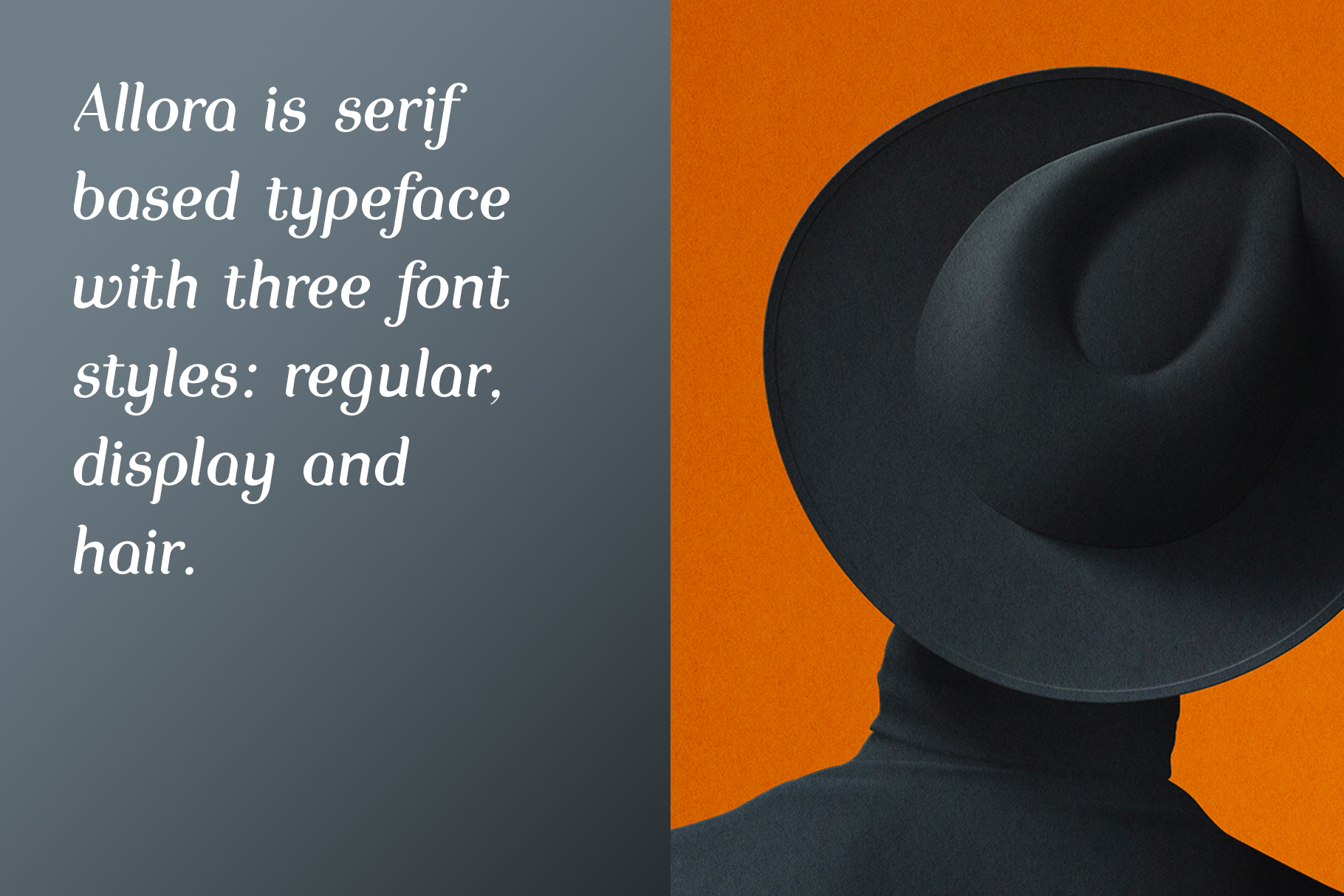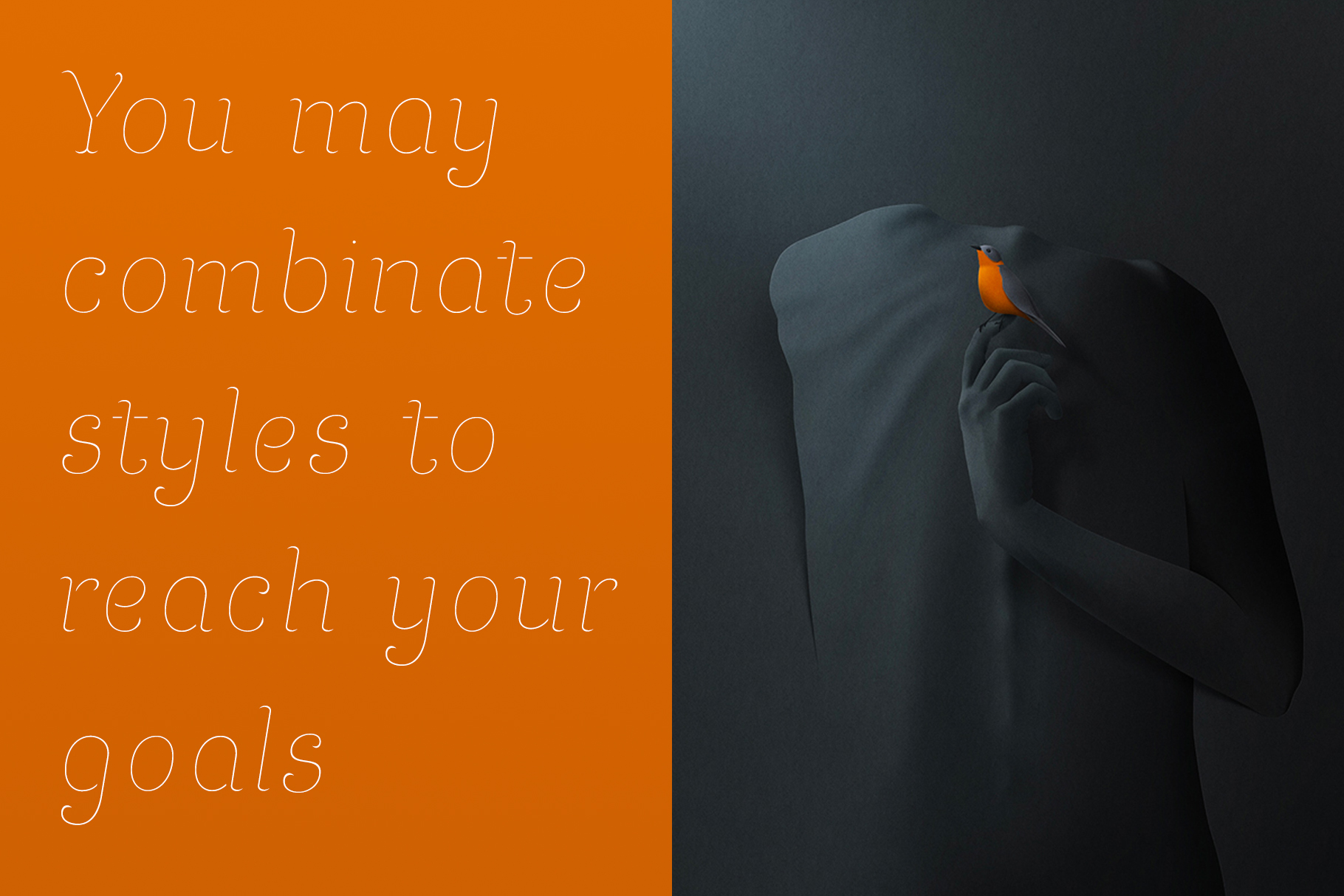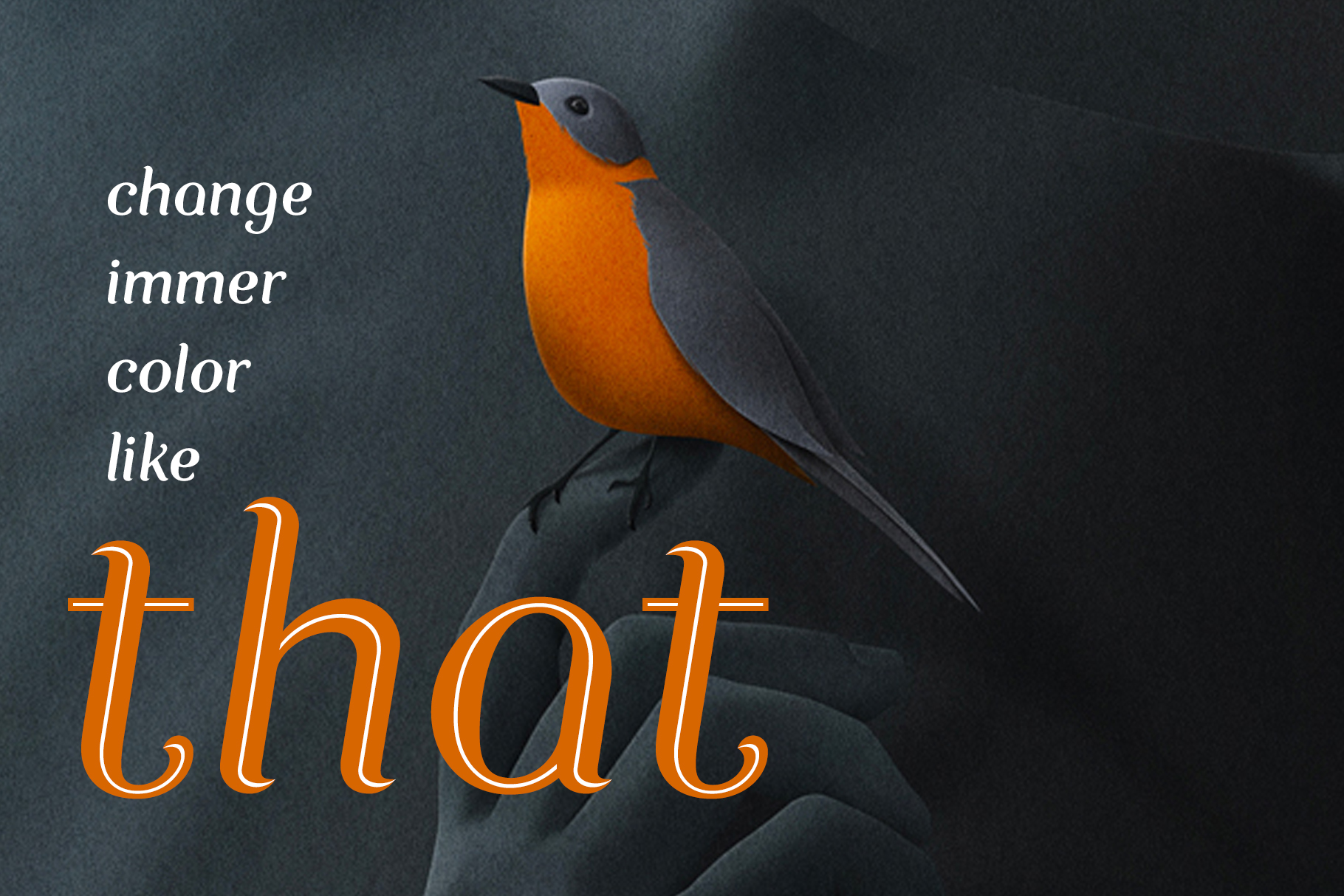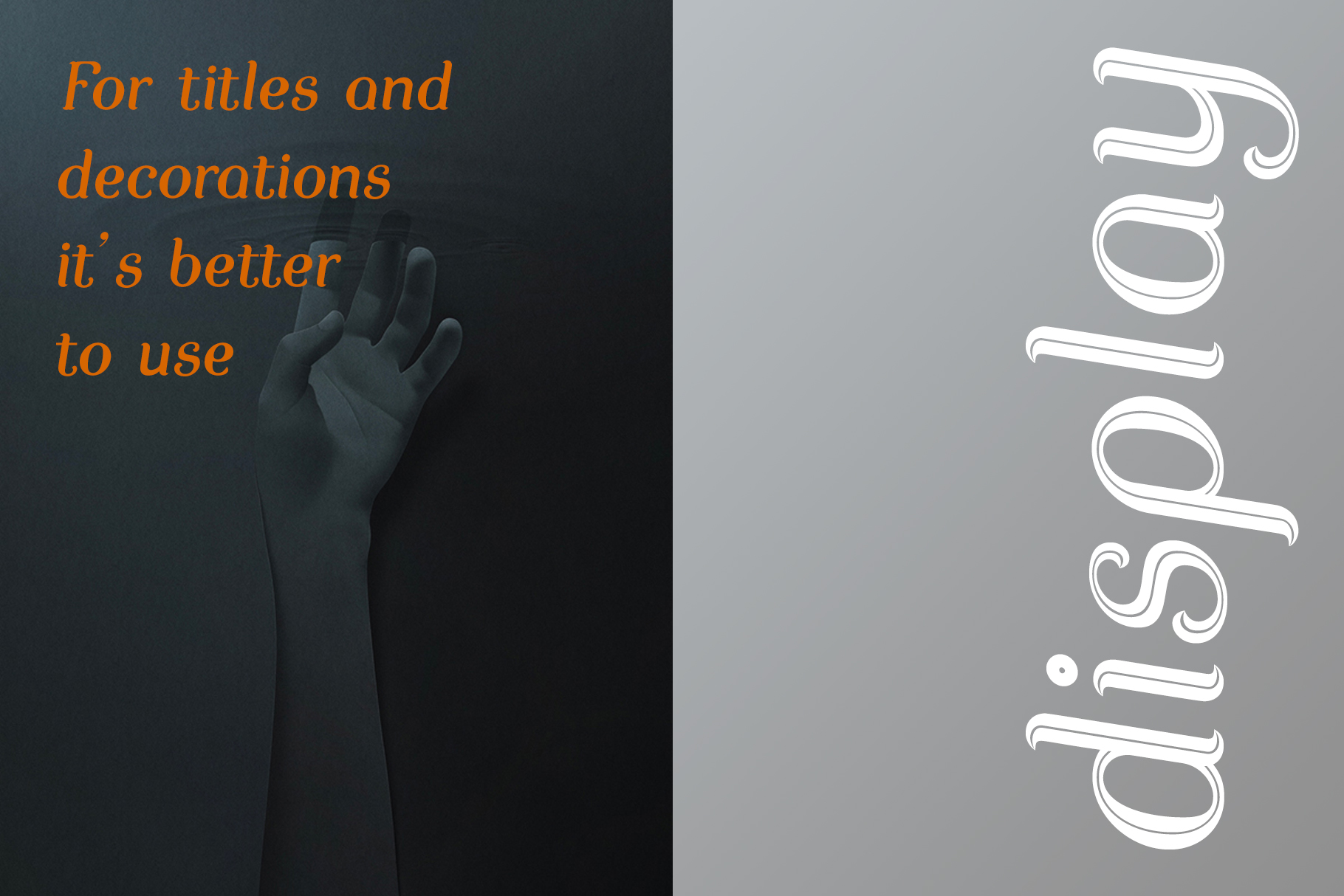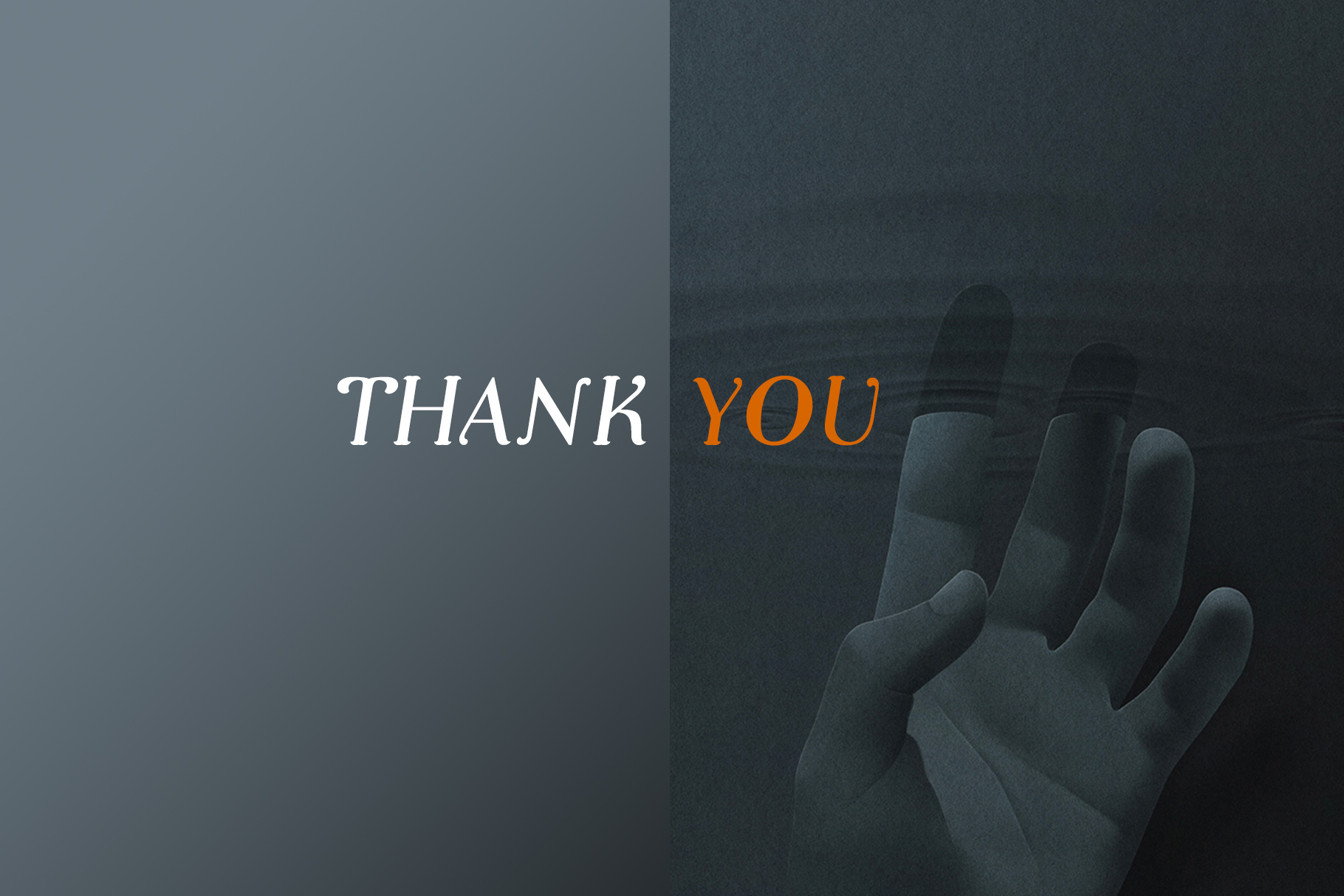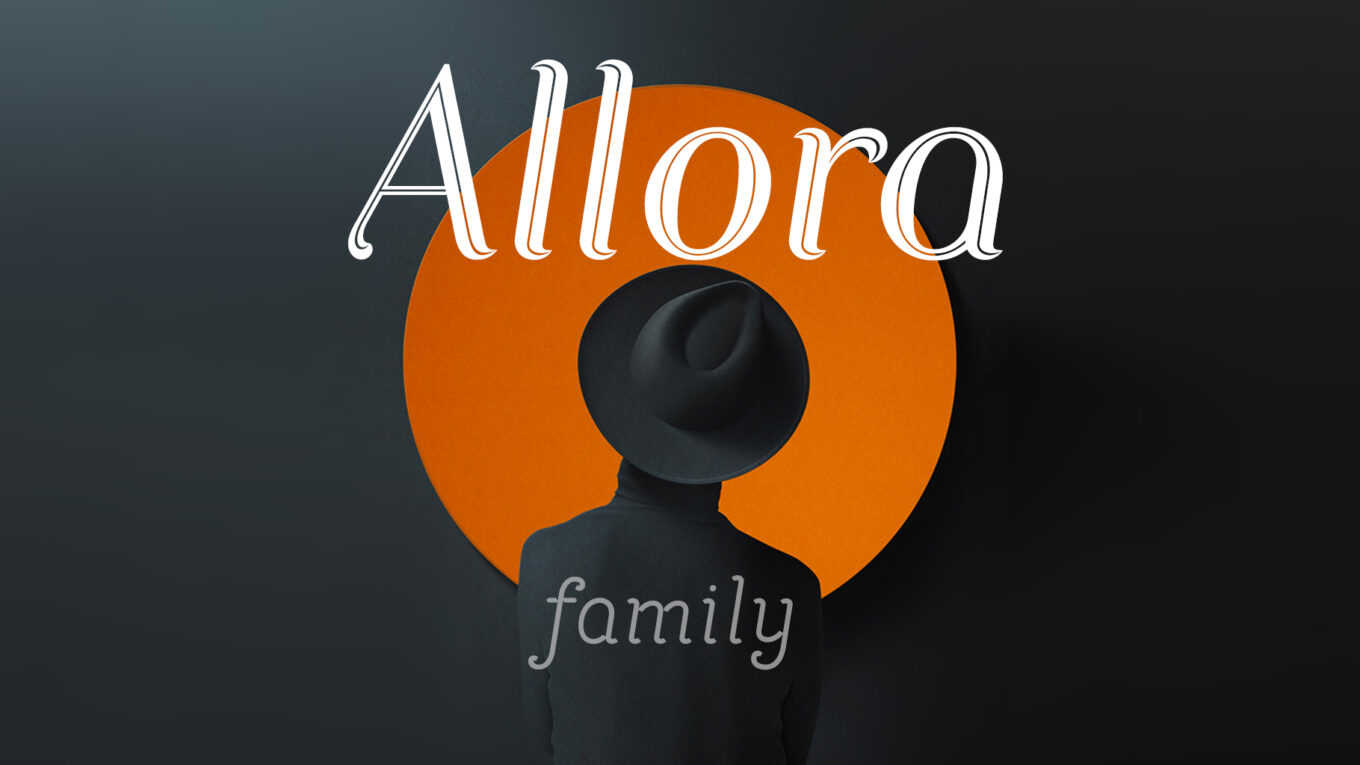
Introducing Allora Font: Elevate Your Designs with Elegance and Sophistication
Are you tired of using the same old fonts in your designs? Look no further than Allora Font, a stunning serif-based font that is sure to take your typography to the next level. With its three distinct styles, Allora offers unparalleled versatility and elegance, making it the perfect choice for designers and crafters looking to add a touch of sophistication to their work.
The Allure of Allora Font
Allora Font is a gorgeous and alluring serif-based font that exudes style and moodiness. Its unique design makes it an instant standout, and its ability to elevate your designs is unmatched. Whether you’re working on a branding project, a website, or a craft project, Allora Font is sure to make a lasting impression.
Three Distinct Styles to Suit Your Needs
One of the most impressive features of Allora Font is its three distinct styles, which can be used standalone or combined to create truly breathtaking typography. This versatility makes Allora Font suitable for a wide range of design applications, from elegant and sophisticated to bold and dramatic.
Key Features of Allora Font
- Serif-based design: Allora Font features a classic serif design that adds a touch of elegance and sophistication to any project.
- Three distinct styles: Choose from three unique styles to suit your design needs, or combine them for a truly unique look.
- Stylish and moody: Allora Font has a distinctive style that is both stylish and moody, making it perfect for designers and crafters looking to add a touch of drama to their work.
- Unparalleled capacity to elevate your designs: Allora Font has the ability to elevate your designs like no other font, making it a must-have for anyone looking to take their typography to the next level.
How to Use Allora Font in Your Designs
Allora Font is incredibly easy to use and can be incorporated into your designs in a variety of ways. Here are a few ideas to get you started:
- Branding projects: Use Allora Font to create stunning logos, business cards, and other branding materials that exude elegance and sophistication.
- Web design: Add a touch of style and sophistication to your website with Allora Font, perfect for headings, titles, and other typography elements.
- Craft projects: Use Allora Font to add a touch of elegance to your craft projects, such as handmade cards, invitations, and other paper crafts.
Why Choose Allora Font?
With so many fonts on the market, why choose Allora Font? Here are just a few reasons why Allora Font stands out from the rest:
- Unique design: Allora Font has a distinctive design that is sure to make your designs stand out from the crowd.
- Versatility: With three distinct styles, Allora Font offers unparalleled versatility and flexibility.
- Elegance and sophistication: Allora Font exudes elegance and sophistication, making it perfect for designers and crafters looking to add a touch of class to their work.
In conclusion, Allora Font is a stunning serif-based font that is sure to elevate your designs to new heights. With its three distinct styles, unique design, and unparalleled capacity to elevate your designs, Allora Font is a must-have for designers and crafters looking to add a touch of elegance and sophistication to their work. So why wait? Try Allora Font today and see the difference it can make in your designs!